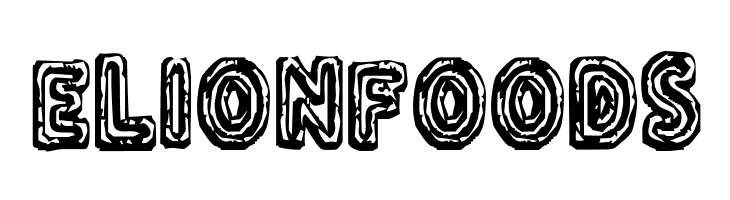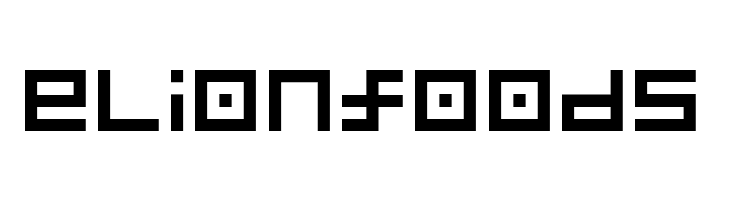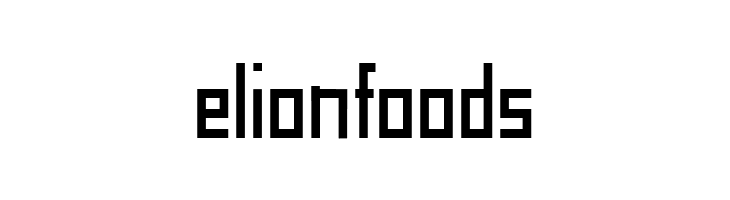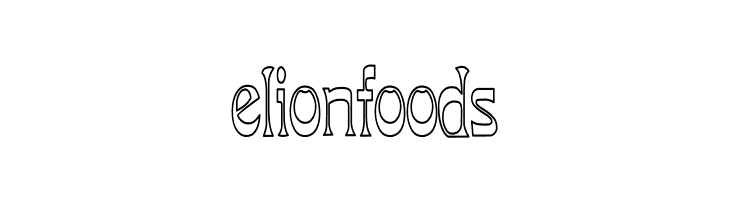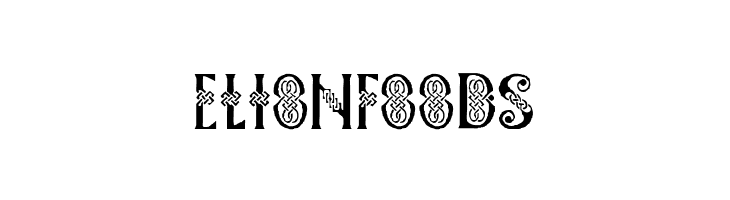
( Fonts by Levi Halmos )
A bold, playful font with a three-dimensional, cartoonish style.
( Fonts by Iconian Fonts - Daniel Zadorozny )
A futuristic, elongated font with a sleek, modern design.
A whimsical and playful font with elegant lines and quirky elements.
An artistic and elegant font with unique flair and smooth curves.
A bold, pixelated font with a retro video game aesthetic.
( Fonts by Rob Dobi - Toxic Type - www.dobi.nu )
A bold, hand-drawn font with textured interiors and playful outlines.
A bold, modern font with geometric structure and consistent stroke widths.
( Fonts by Phillip Cavette )
A playful and quirky font with tall, narrow letterforms and uneven strokes.
( Fonts by Uddi Uddi )
A modern, elongated font with narrow characters and a sleek appearance.
( Fonts by Jeri Ingalls - littlehouse.homestead.com )
A geometric, angular font with a modern and bold design.
( Fonts by www.pia-frauss.de )
A traditional Blackletter font with ornate, medieval-inspired design.
An elegant script font with flowing, calligraphic elements and ornate flourishes.
A bold, geometric font with a condensed, Art Deco-inspired design.
( Fonts by Levi Halmos )
A geometric, angular font inspired by ancient inscriptions, ideal for modern design projects.
( Fonts by Levi Halmos )
A bold, geometric font with a futuristic, digital aesthetic.
( Fonts by Dieter Schumacher )
A bold, angular font with sharp edges and a modern aesthetic.
A modern, slanted font with elongated characters and consistent stroke width.
( Fonts by Nick`s Fonts )
A playful and whimsical font with decorative swirls and curls.
A decorative font with Celtic-inspired interwoven patterns and bold, ornate letters.
A bold, geometric font with decorative elements and a vintage touch.
( Fonts by Harold Lohner - www.haroldsfonts.com )
A bold, cinematic font with a vintage film reel aesthetic.